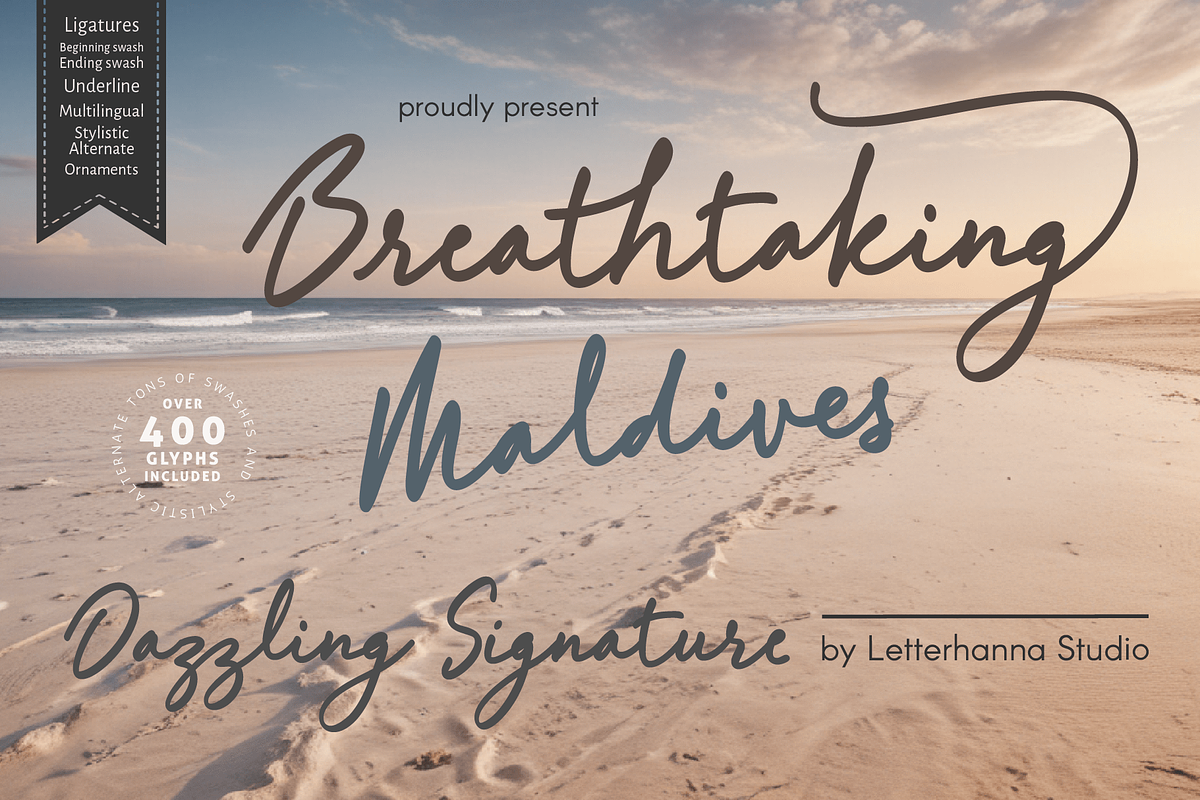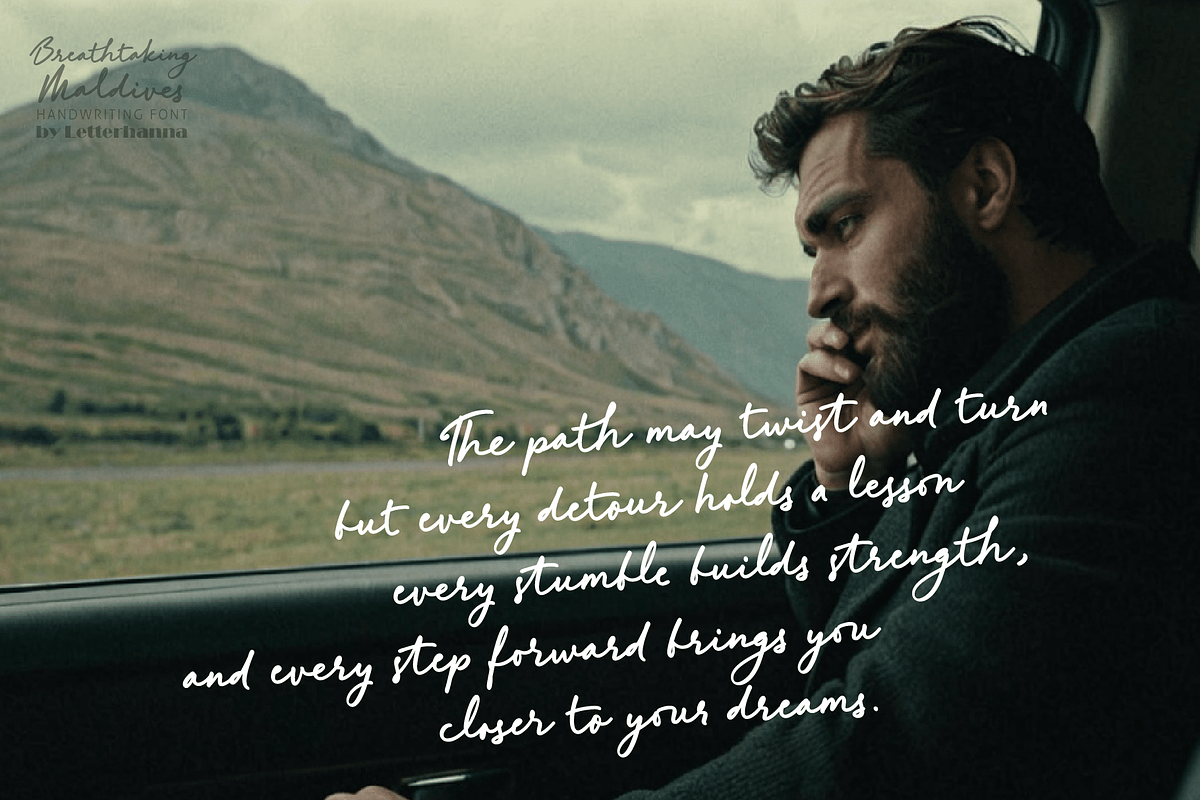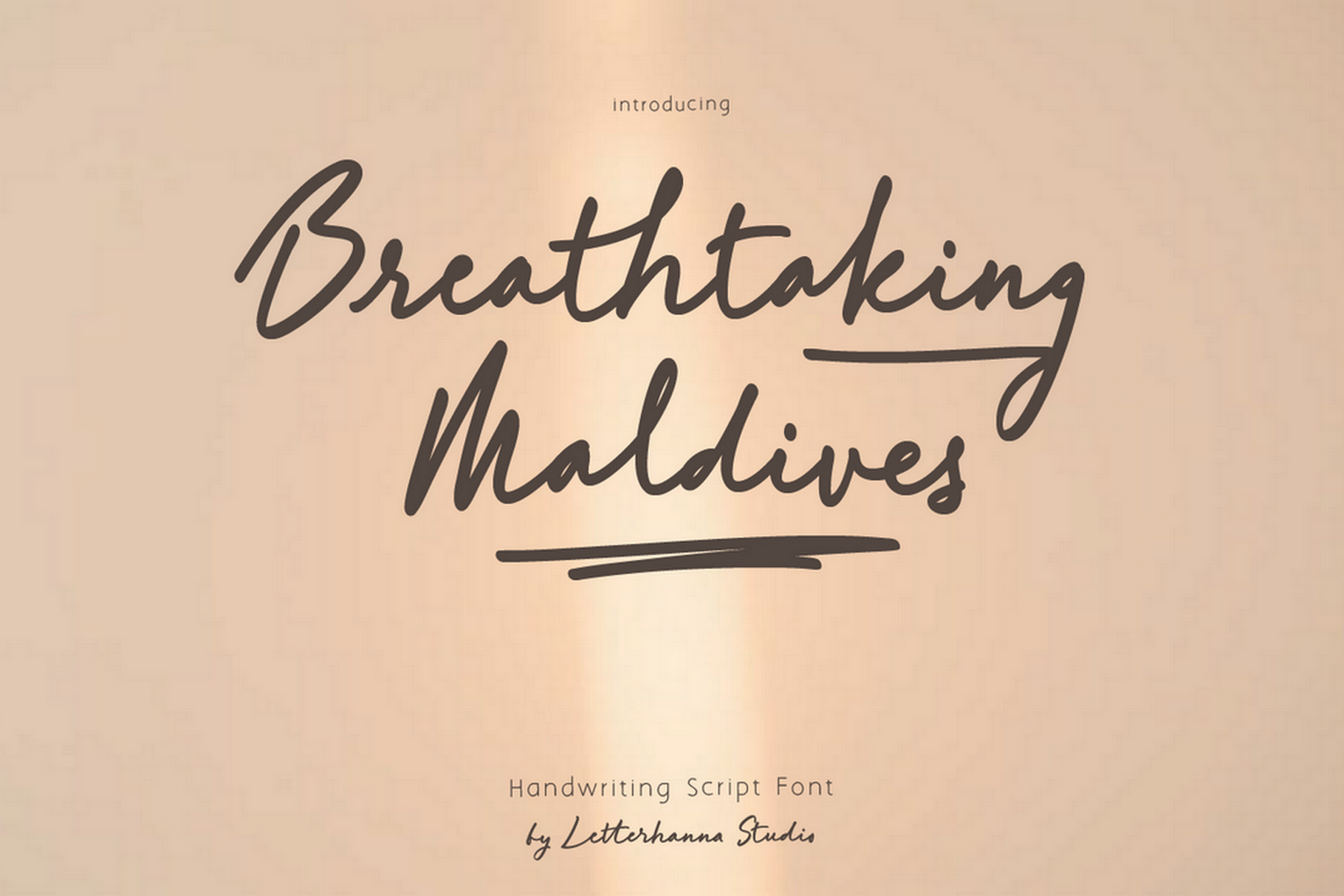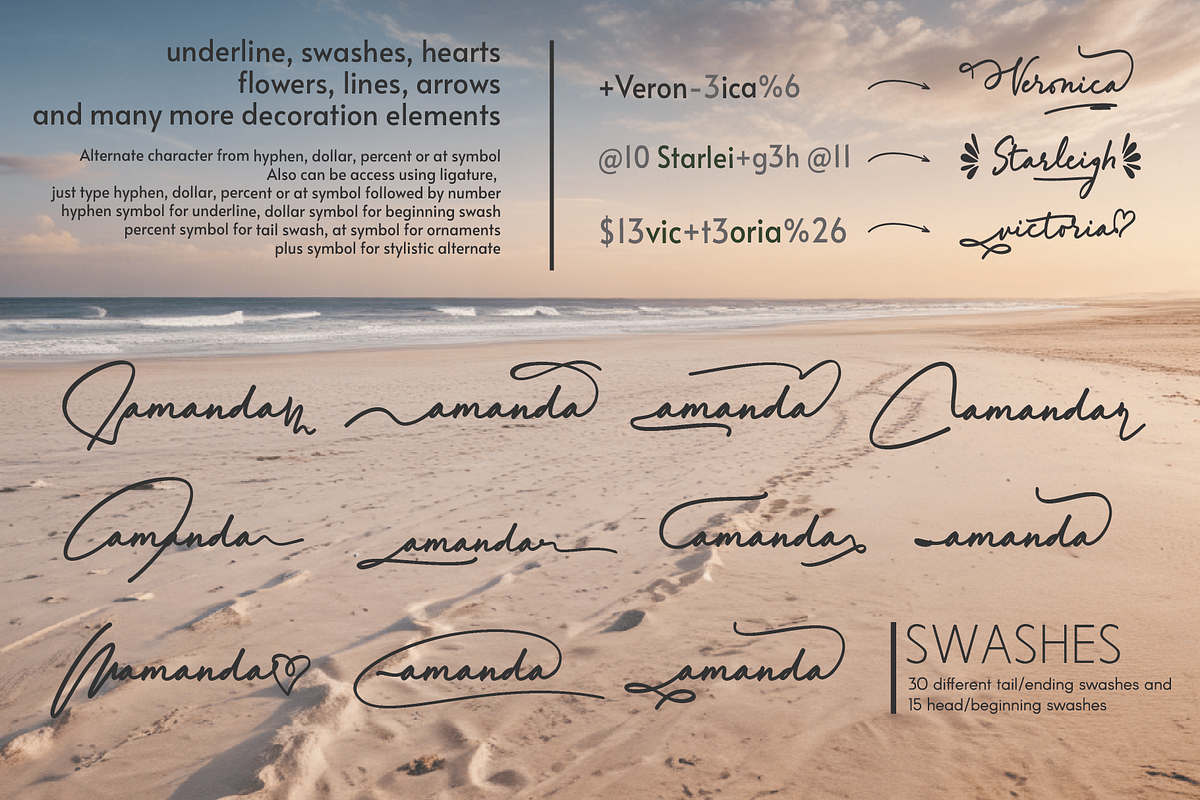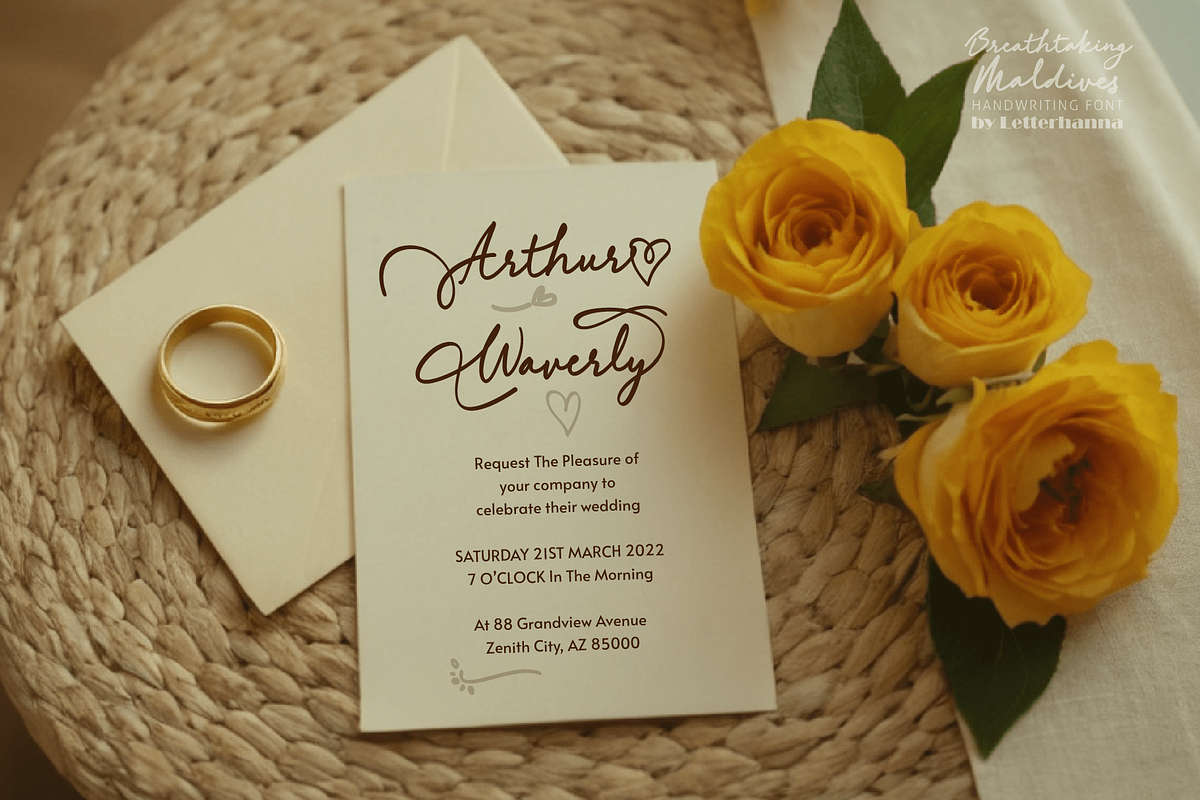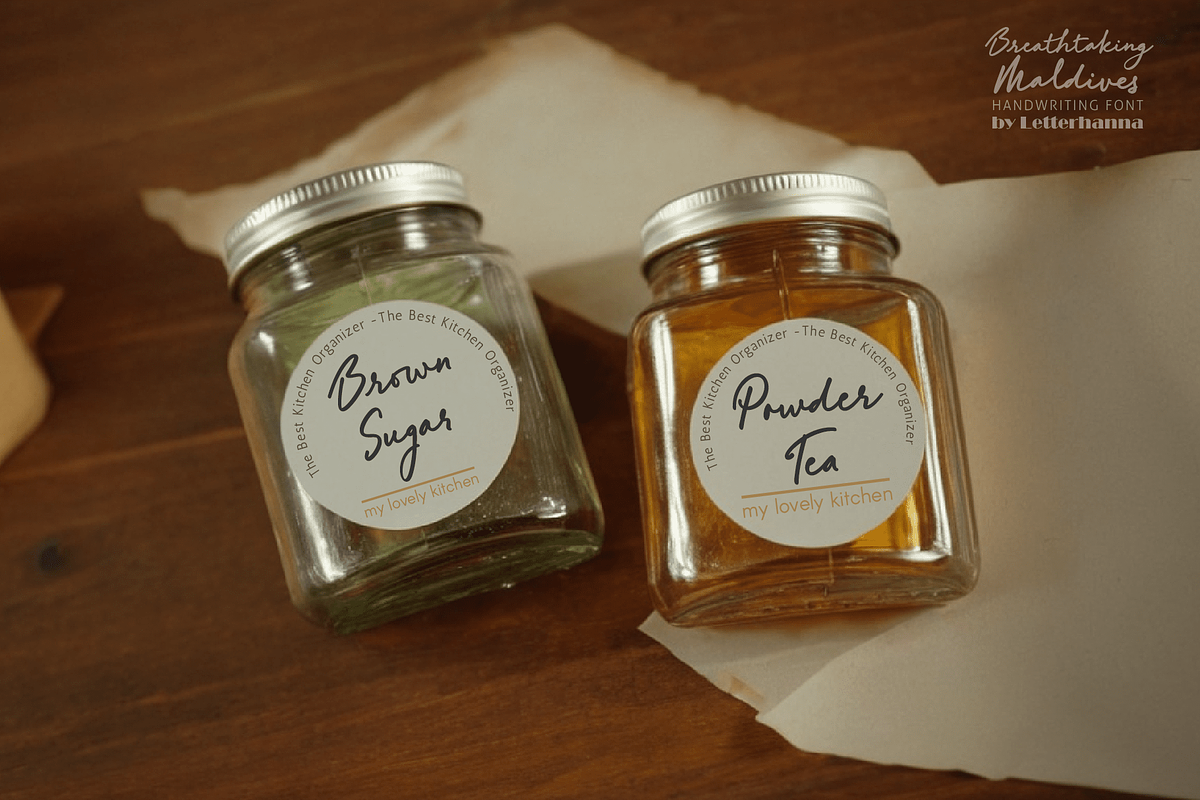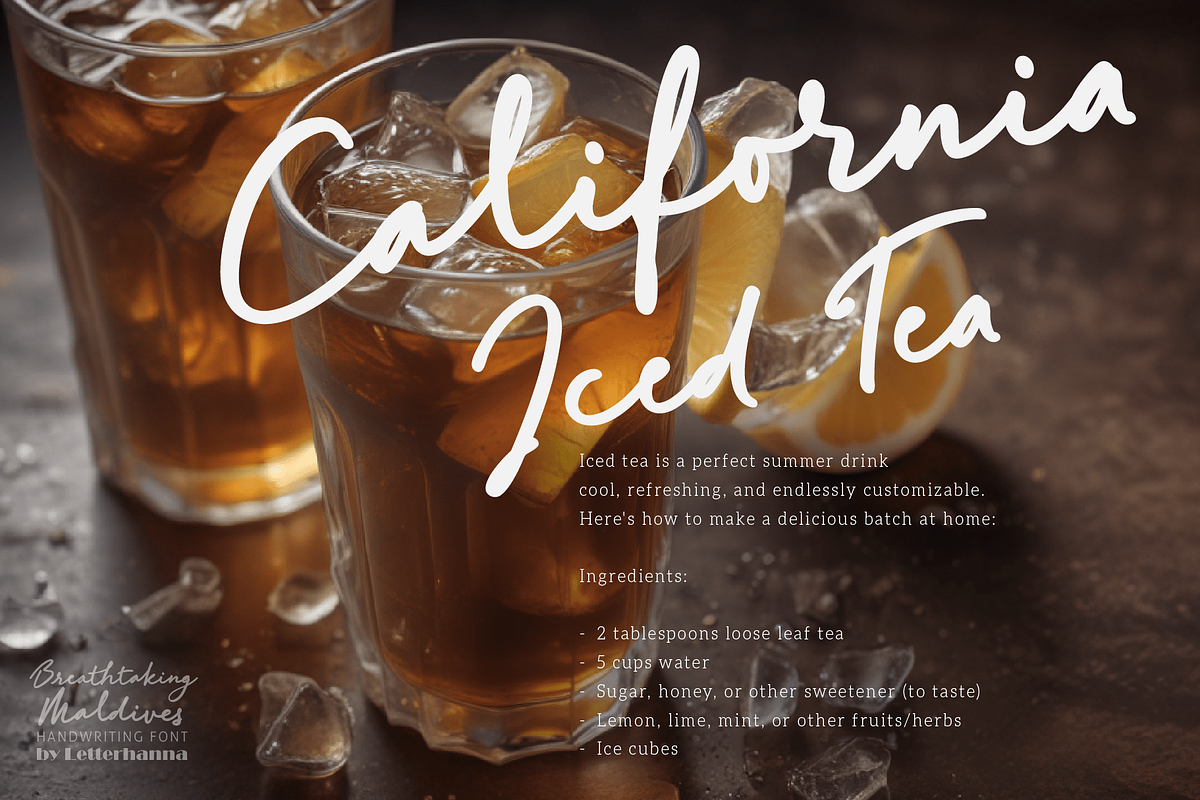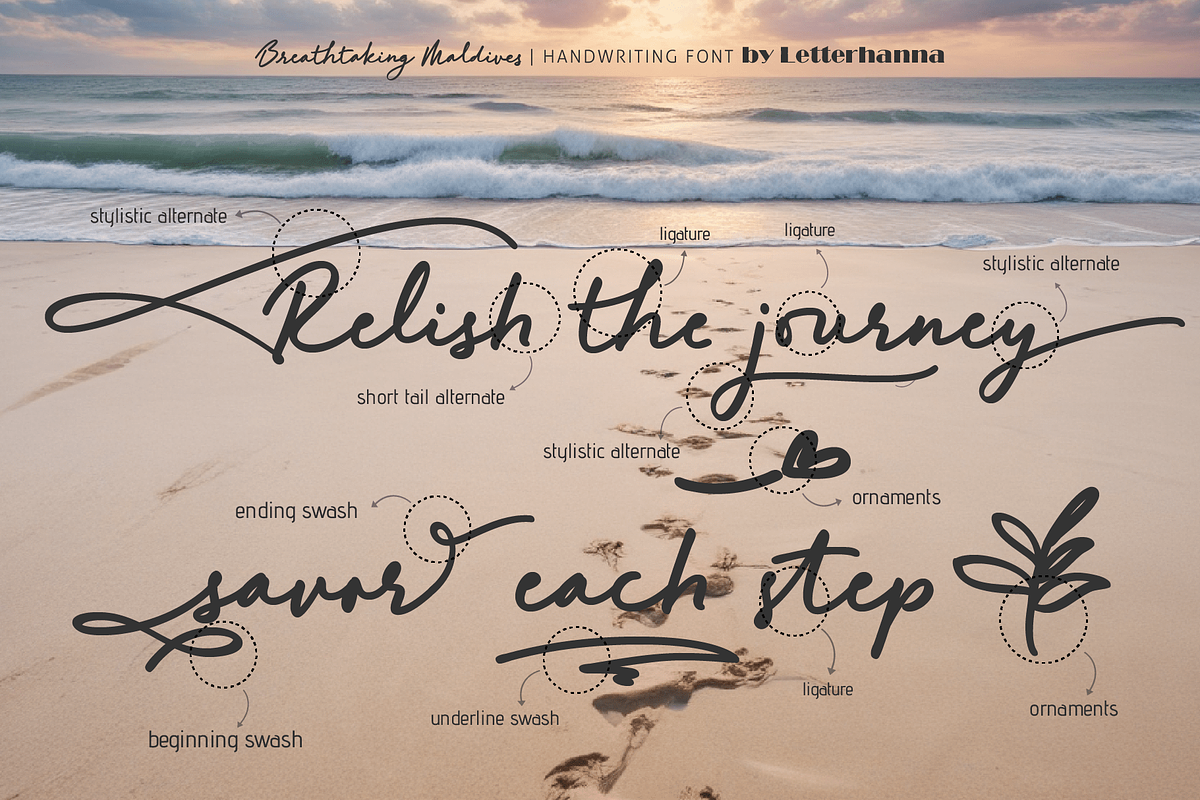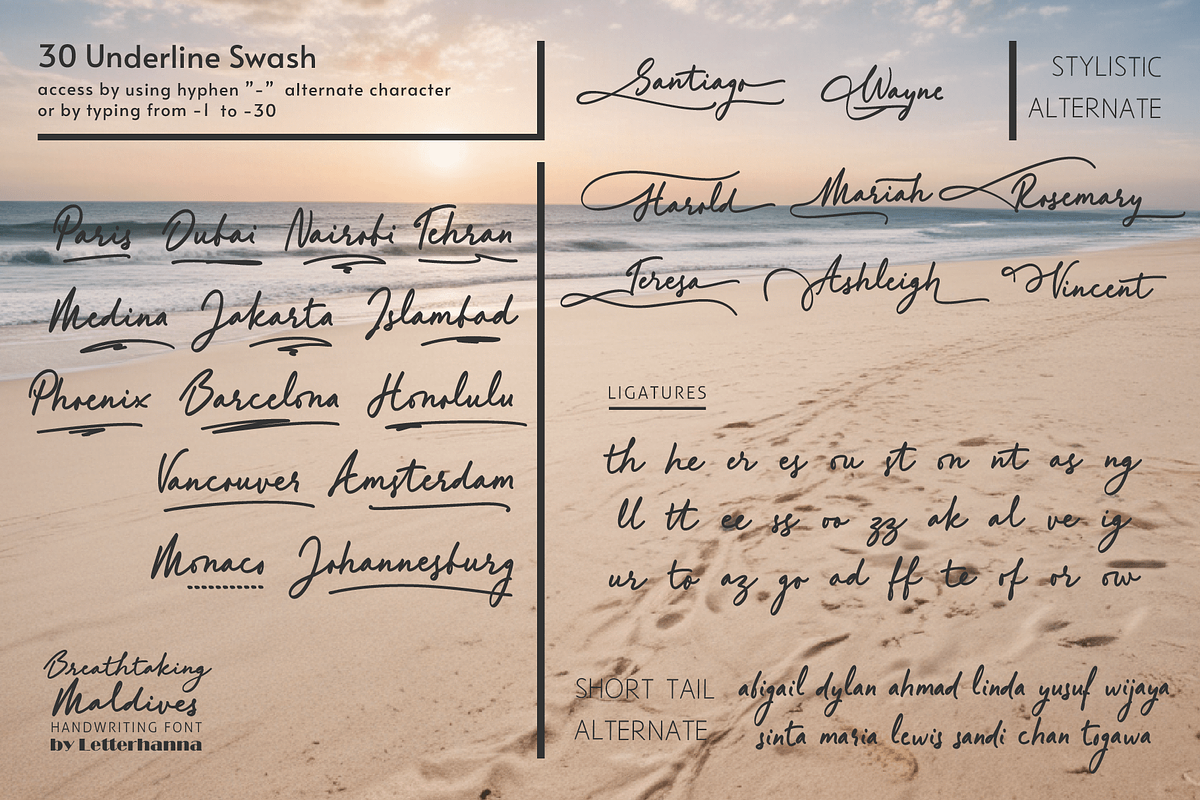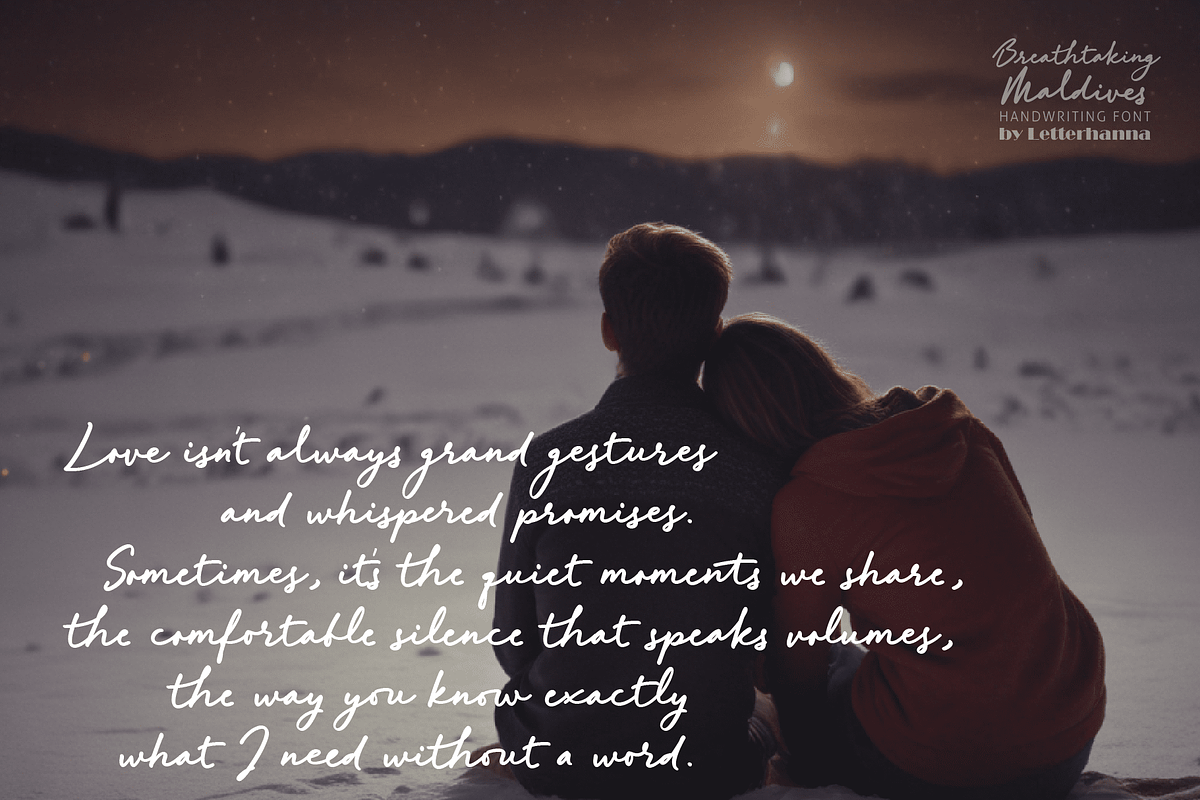
Breathtaking Maldives Font
Experience the beauty of effortless elegance with Breathtaking Maldives, a bold signature font designed to make every word stand out. With its confident strokes, this typeface captures the essence of sophistication and modern charm.
Perfect for branding, logos, wedding invitations, social media, and high-end designs, Breathtaking Maldives adds a touch of exclusivity to any project. Whether you're crafting a stylish signature, an elegant headline, or a luxurious brand identity, this font will leave a lasting impression.
Let your words flow with boldness and grace—discover Breathtaking Maldives today!
Easy Access to Glyphs and Swashes Gain easy access to all alternate glyphs, swashes, ornaments, and underlines by simply using ligatures. You can try them out yourself in the font preview tool on our website, letterhanna.com.
Accessing Swashes and Ornaments
Underline Swashes: Use a hyphen symbol "-" followed by a number between 1 and 30. For example, type "-3", "-22", or "-17" to get various underline swashes. Head/Beginning Swashes: Use a dollar sign "$" followed by a number between 1 and 9. For example, type "$2" or "$8" to get different head/beginning swashes. Tail/Ending Swashes: Use a percent sign "%" followed by a number between 1 and 30. For example, type "%3" or "%15" to get various tail/ending swashes. Ornaments: Use an "at" symbol "@" followed by a number between 1 and 26. For example, type "@4" or "@13" to get different ornaments.
PUA Encoding for Ease of Use, which means you can access all the glyphs and swashes with ease!
Uppercase and lowercase letters
Numbers and punctuation marks
Beginning and ending swashes
Underline swashes
Ornaments
Easy access to swashes using ligatures